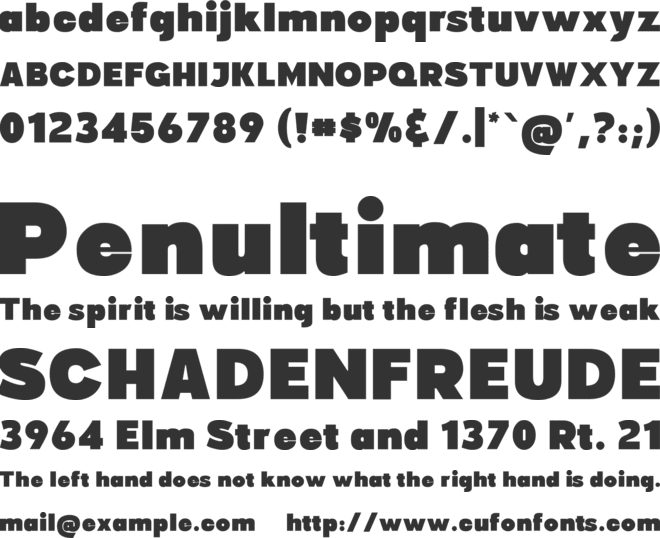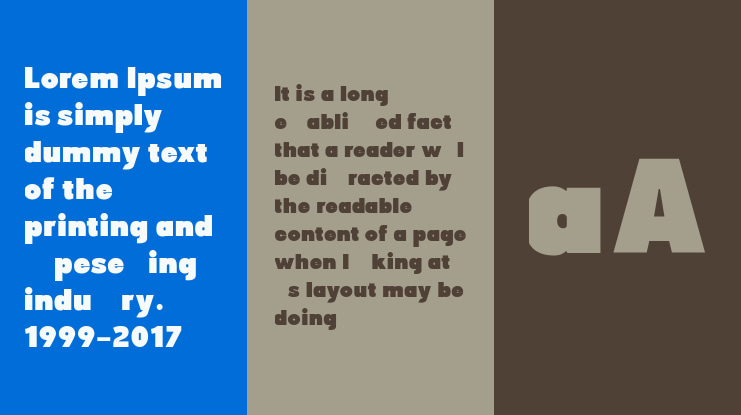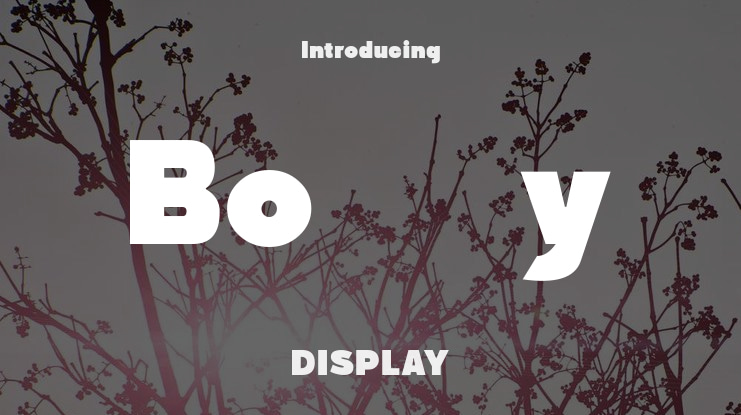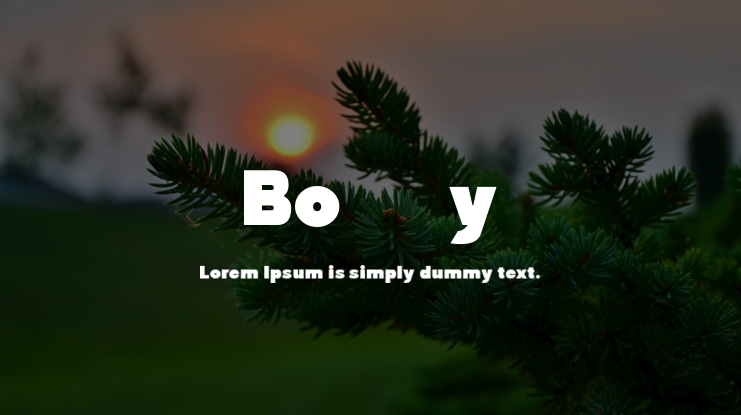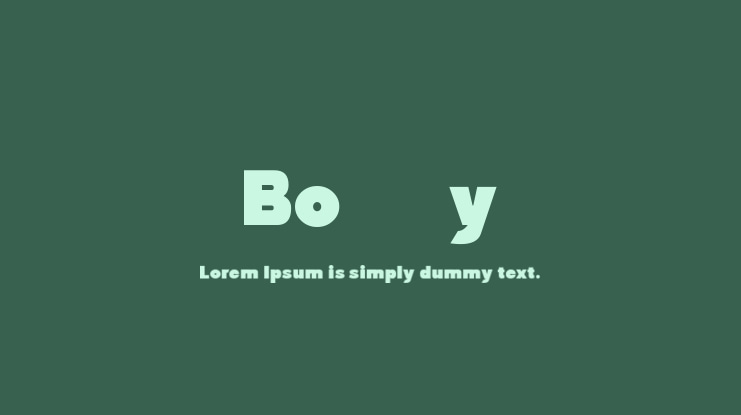
Bollity Font
Meet Bollity, a sans-serif font featuring a bold body and unique ligatures that set it apart for a variety of creative projects. With its thick and impactful design, Bollity is ideal for headlines, logos, and more, ensuring that your message grabs attention. This versatile font can elevate branding, advertising, and editorial designs with its modern and dynamic style. Its distinct ligatures bring a touch of creativity, seamlessly blending into designs that call for a contemporary and chic look. Whether you're working on branding materials, promotions, or eye-catching titles, this font delivers both versatility and aesthetic appeal, enhancing the visual impact of your project.